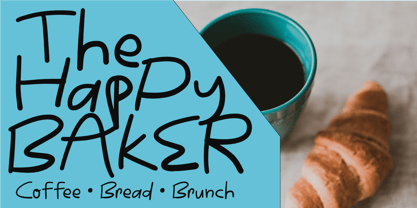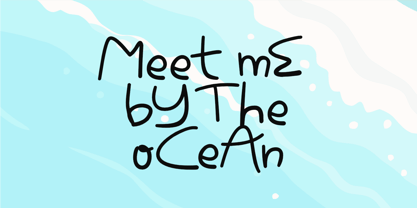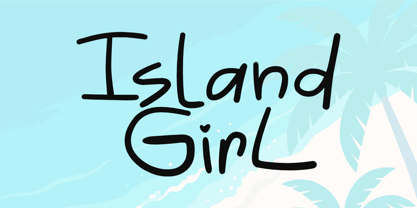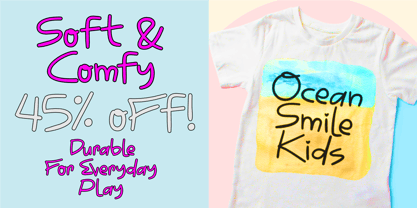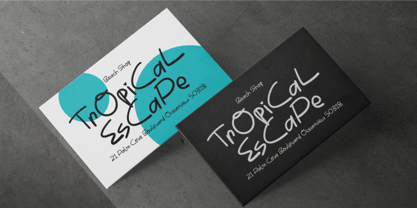
Island Girl
by Epiclinez
The Island Girl Font Family was designed by Aldy Sidik and published by Epiclinez. Island Girl contains 1 styles. More about this family
Island Girl is a cute and playful handwritten display font with a warm, friendly personality. Its smooth curves, rounded letterforms, and natural handwritten style make it perfect for creating cheerful, eye-catching designs. Whether you're designing for children's brands, playful logos, product packaging, greeting cards, social media graphics, or summer-themed projects, Island Girl brings a fresh, happy, and approachable look to every creation.
Ideal for branding, kids' products, toy packaging, apparel, cafés, bakeries, beach shops, stationery, invitations, stickers, posters, book covers, and DIY crafts, this versatile font adds a touch of fun and charm while remaining highly readable. Let Island Girl brighten your next creative project with its carefree, joyful spirit.